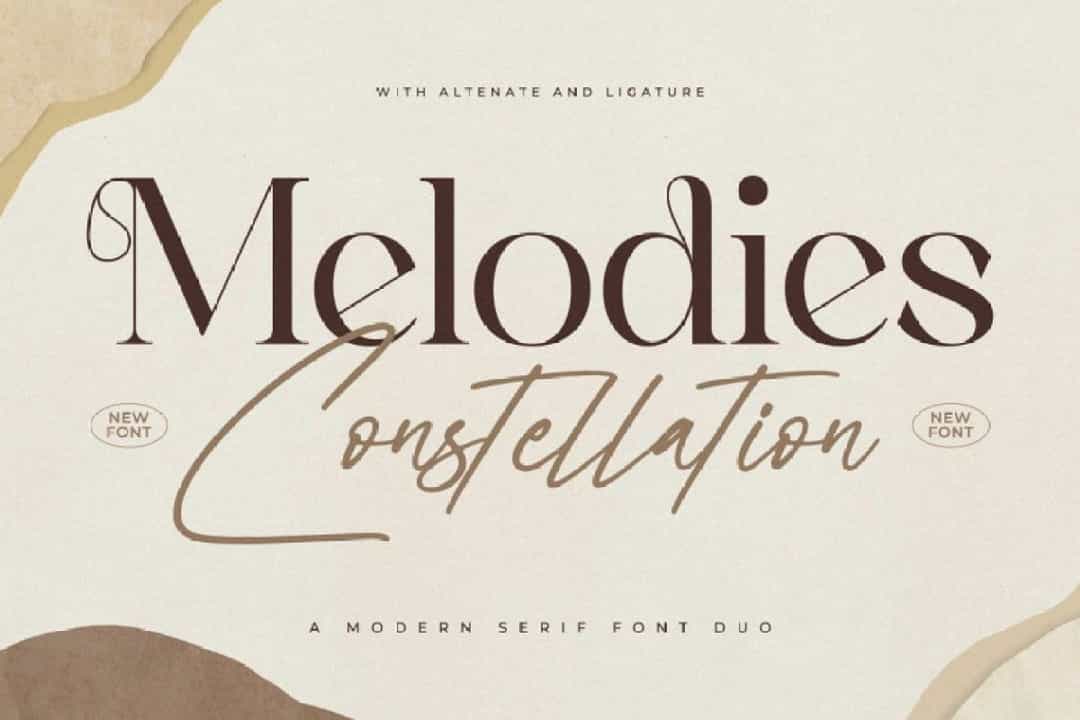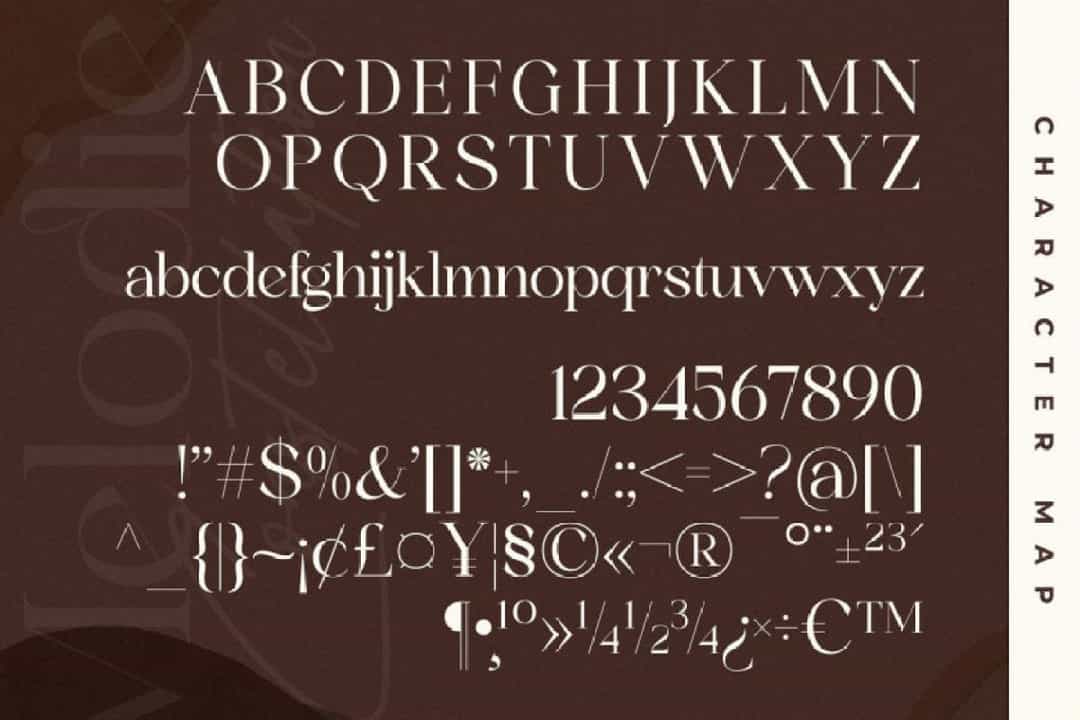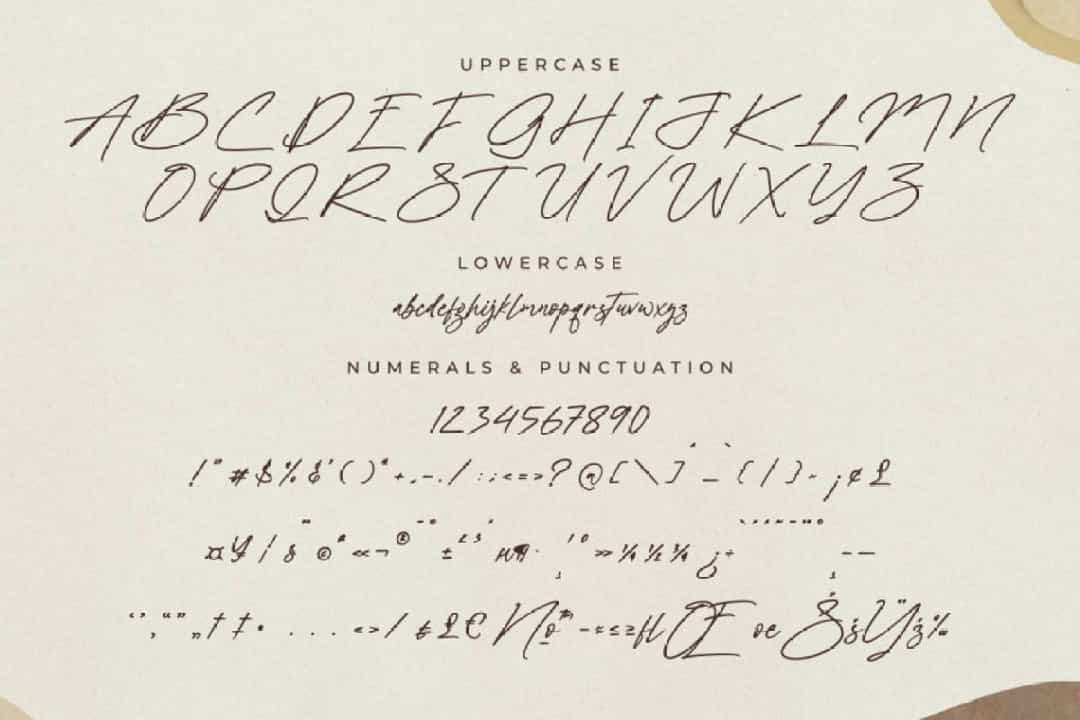
Melodies Constellation is a script and serif font with its own distinct style and modern appearance, ideal for creating classy logos, movie or book title designs, fashion brands letters, clothing quotations and many other applications.